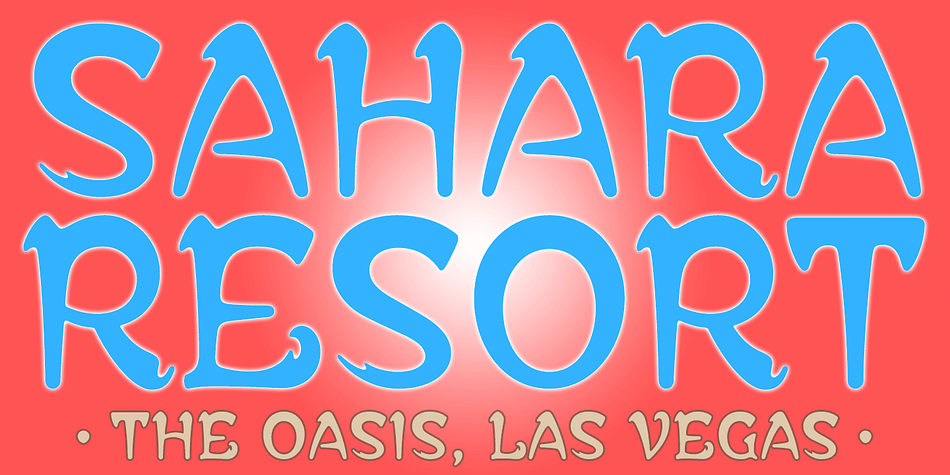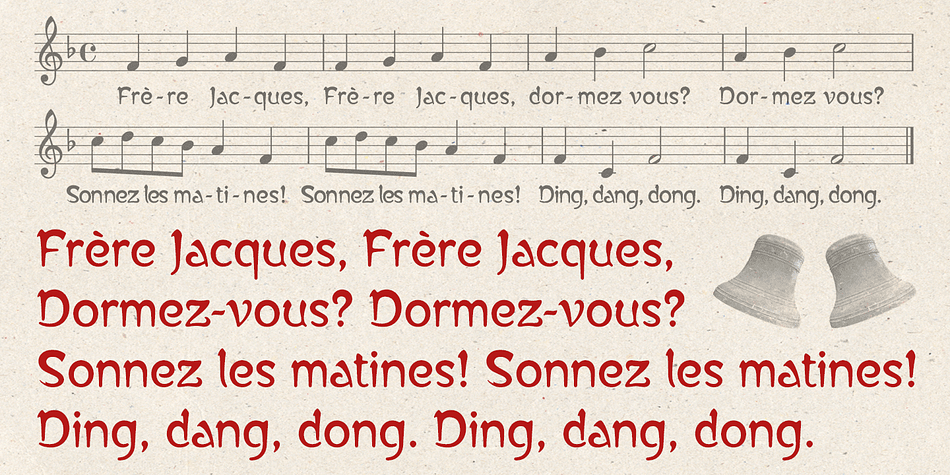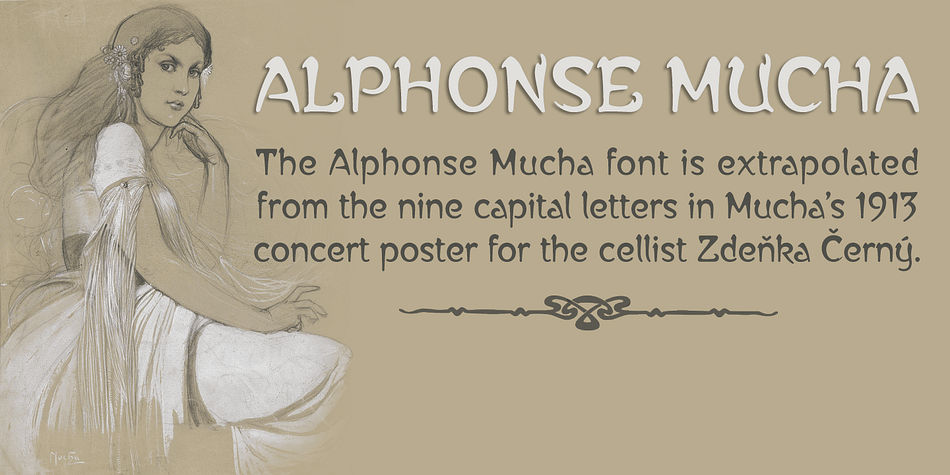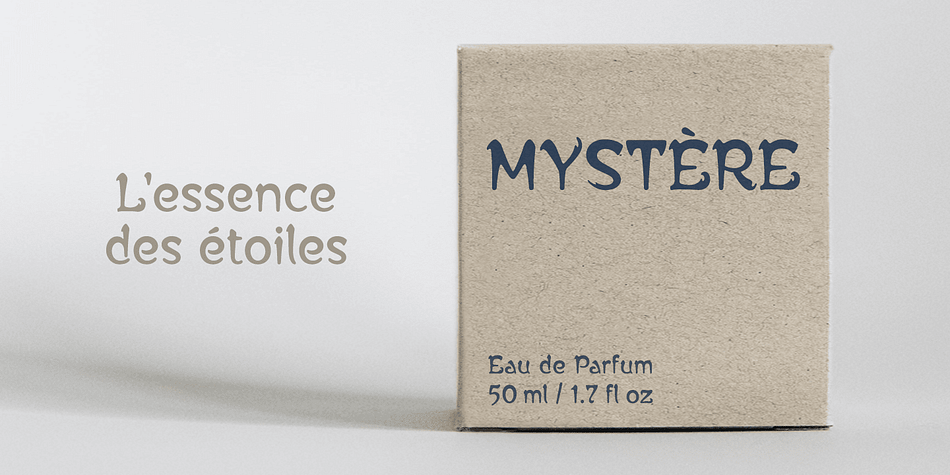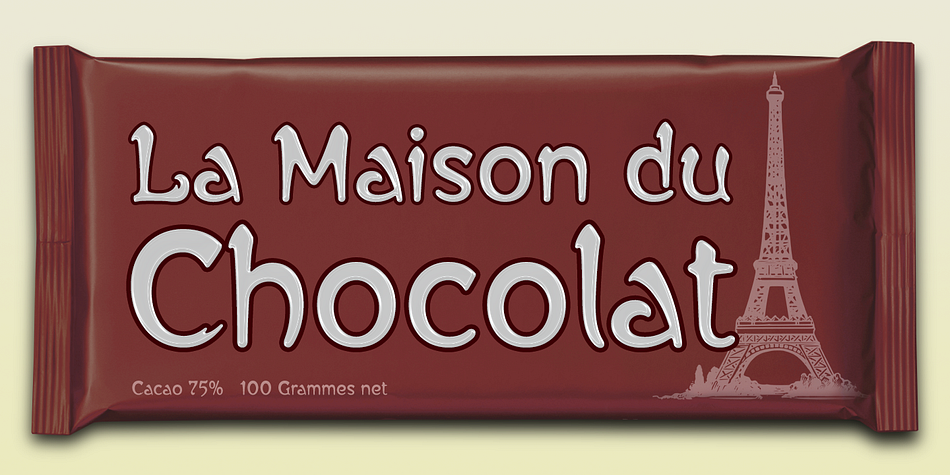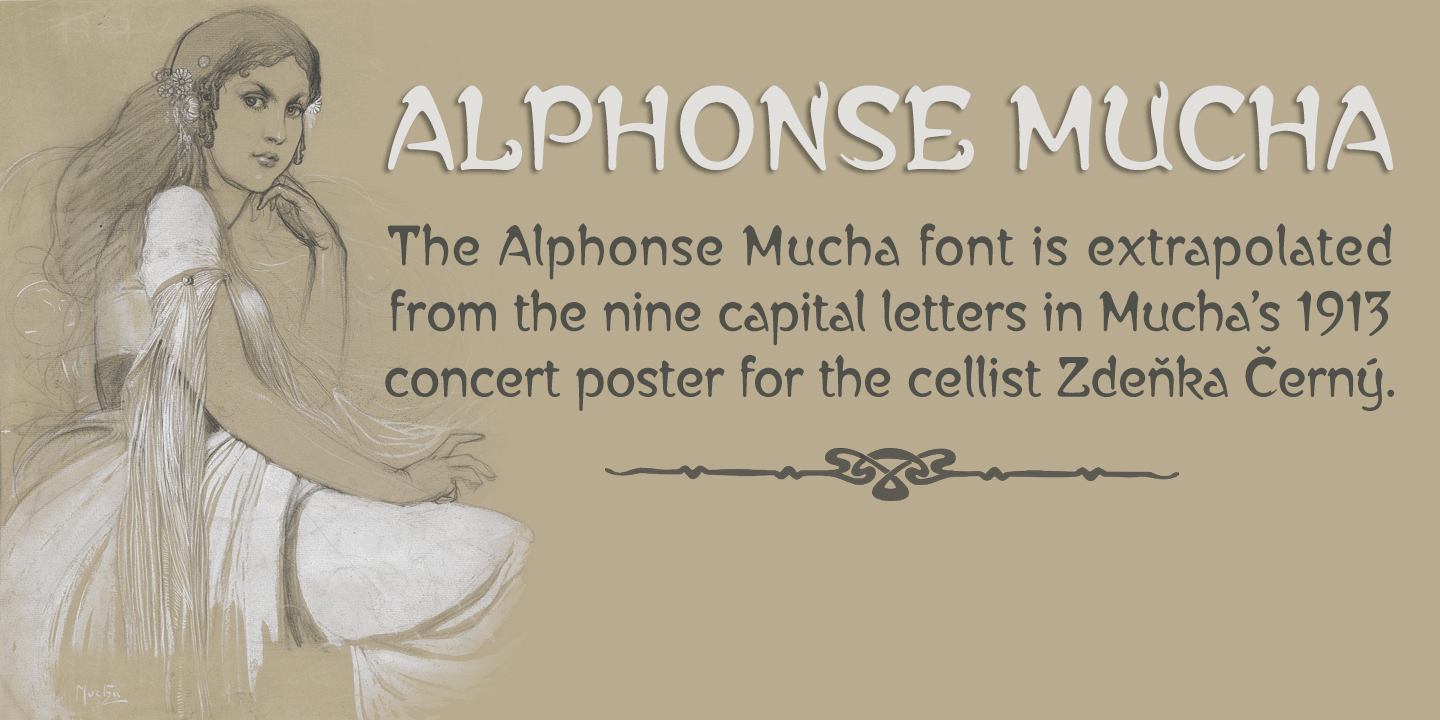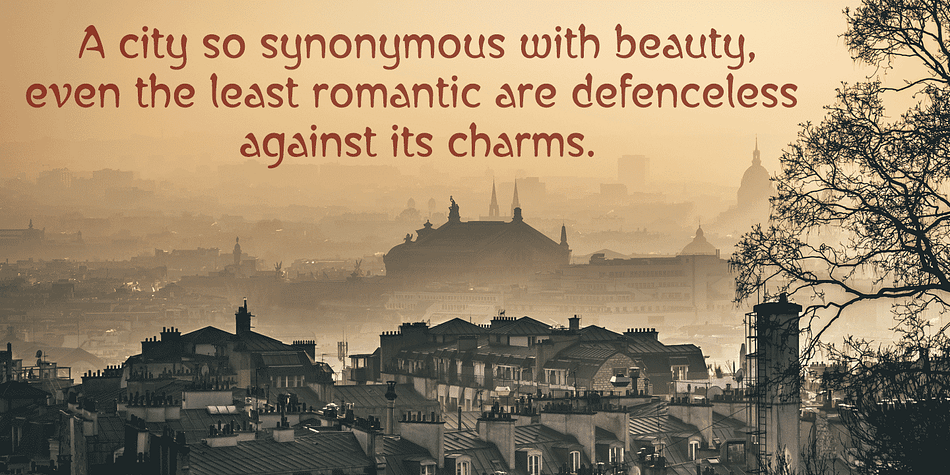
Alphonse Mucha
Designed by Keith Bates, Alphonse Mucha is a display sans font family published by K-Type.
Alphonse Mucha is a decorative display font in the Art Nouveau style which originated over a century ago. The font is extrapolated from just nine capital letters in Mucha’s 1913 concert poster for the cellist Zdeňka Černý.
Letters and numerals are consistently top-heavy, imbuing text with a graceful uniformity and evenness of type color. A full repertoire of Latin Extended-A characters is contained within the font.